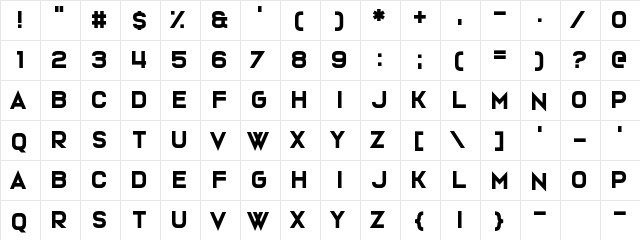
Love Nature Regular
Design Context for Love Nature Typeface
Love Nature offers clean, dependable letterforms without strong stylistic allegiance, making it a practical choice for designers who need flexibility.
Pro Tip: Use Love Nature in both headline and body roles to test its range before committing to a single application.